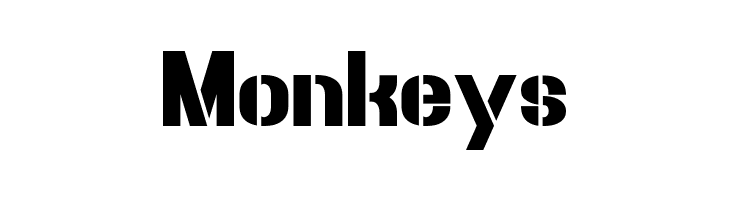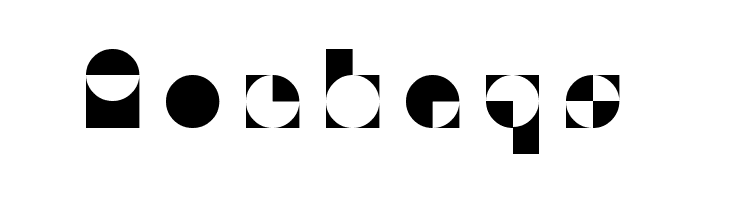
A bold, stencil-like font with geometric influences and strong visual impact.
A bold, modern font with a stencil-like, industrial design.
A geometric and abstract font with bold, circular shapes and a modern aesthetic.